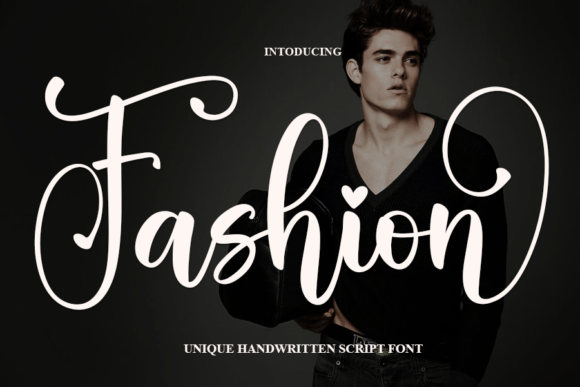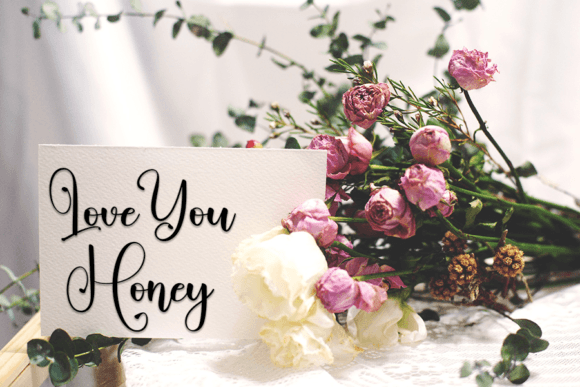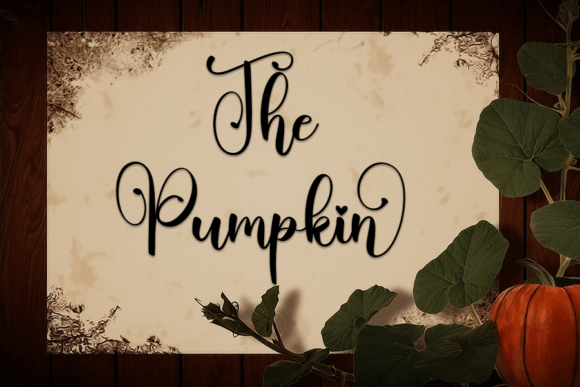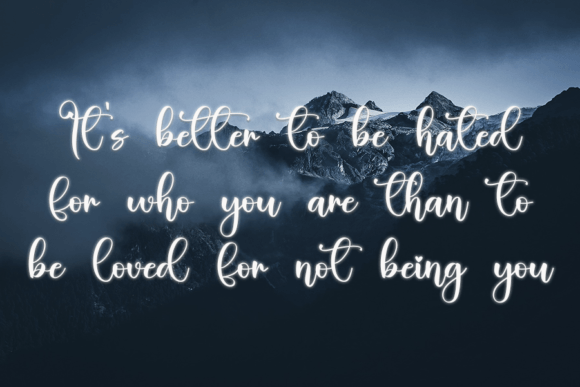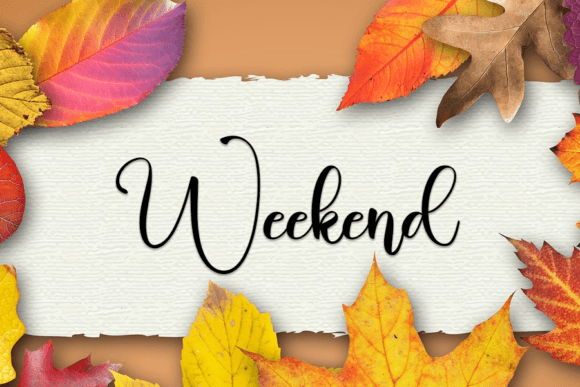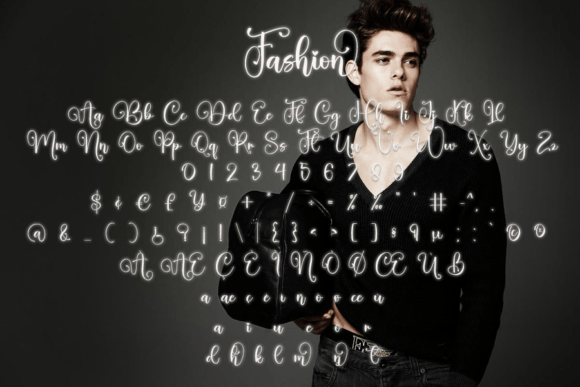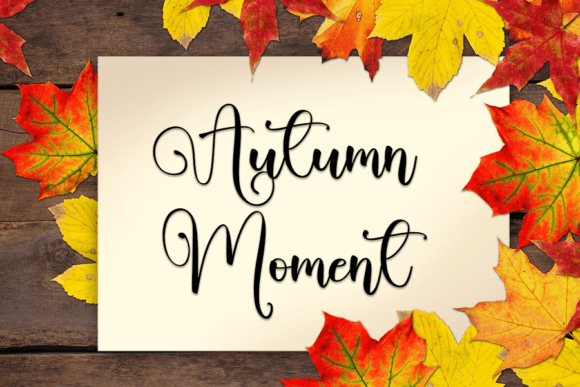
Discover Your Next Design Obsession: Fashion Font
As designers, we’ve all been there – staring at a blank canvas, waiting for the perfect idea to strike. For me, it’s often a late-night Pinterest scroll that sets my creative juices flowing. One look at a beautifully styled blog post or fashion magazine, and I’m inspired to create something new and exciting. And that’s exactly what happened when I discovered Fashion Font – a stunning handwritten script font that’s about to take your designs to the next level.
This modern, calligraphy-inspired font is the perfect addition to any project. Its balanced and varied strokes create a spotless form that’s both stylish and versatile. Whether you’re designing a fashion brand, a wedding invitation, or a social media campaign, Fashion Font is sure to elevate your work and make it stand out from the crowd.
Fashion Font Key Features
- Unique Characteristics: This font features a stylish and elegant design with intricate details, making it perfect for fashion, beauty, and luxury brands.
- Kerning and Ligatures: Fashion Font includes advanced kerning and ligature pairs, ensuring precise spacing and a professional look in any design.
Designer Review: Fashion Font
First off, I’d like to say that Fashion Font has some amazing qualities that make it stand out. ✨ The font’s sleek and modern design is perfect for any fashion brand looking to make a statement. It’s easy to read and the letterforms are clean and well-spaced.
- ✨ Unique and stylish design that’s perfect for fashion brands
- ✨ Easy to read and understand
- ✨ Highly customizable
However, there are some limitations to consider. ⚠️ The font may not be suitable for all types of text, such as body copy or lengthy paragraphs. It’s best used for headings, titles, and short blocks of text. Additionally, the font’s complexity may make it difficult to pair with other fonts.
- ⚠️ Not suitable for body copy or lengthy paragraphs
- ⚠️ May be difficult to pair with other fonts
Overall, I’d give Fashion Font 4 out of 5 stars. It’s a great choice for fashion brands looking to make a statement, but it may not be the best option for all types of text.
Tips for Getting the Most Out of Fashion Font
Use Fashion Font to add a touch of elegance to your designs. Experiment with different font sizes and colors to create visual interest. Combine Fashion Font with other design elements, such as graphics and images, to create a cohesive look.
Fashion Font is perfect for creating fashion-forward designs, such as:
– Fashion blog posts and articles
– Fashion magazine layouts
– Fashion brand identity materials
– Fashion event promotional materials
Alternatives to Fashion Font
Avenir is a geometric sans-serif font designed by Adrian Frutiger. It’s a versatile font that works well for both digital and print media. Use Avenir for clean and modern designs where you want to convey a sense of sophistication and elegance.
Compared to Fashion Font, Avenir has a more minimalist and understated look, making it suitable for a wider range of design applications.
Playfair Display is an elegant and luxurious serif font designed by Claus Eggers Sørensen. It’s perfect for high-end fashion and luxury brands that want to convey a sense of opulence and refinement.
While Fashion Font is more playful and experimental, Playfair Display is more formal and sophisticated, making it a better choice for brands that want to project a sense of exclusivity.
Q: Can I customize the Fashion Font to fit my brand’s specific needs, such as changing the color or adding custom glyphs?